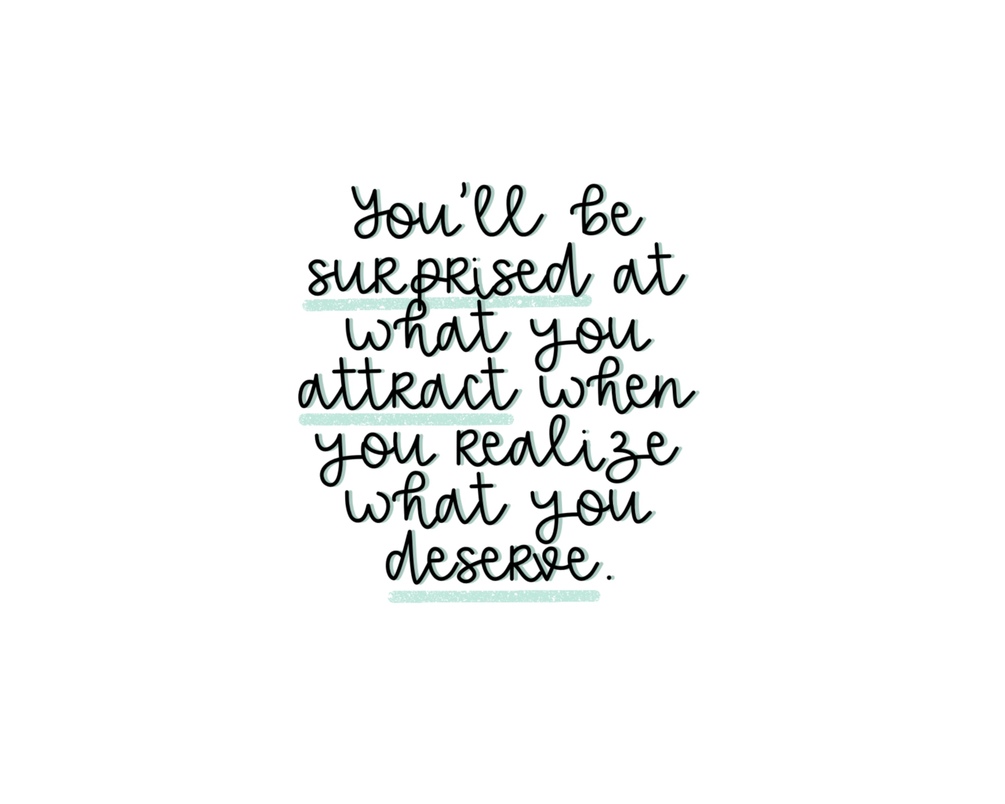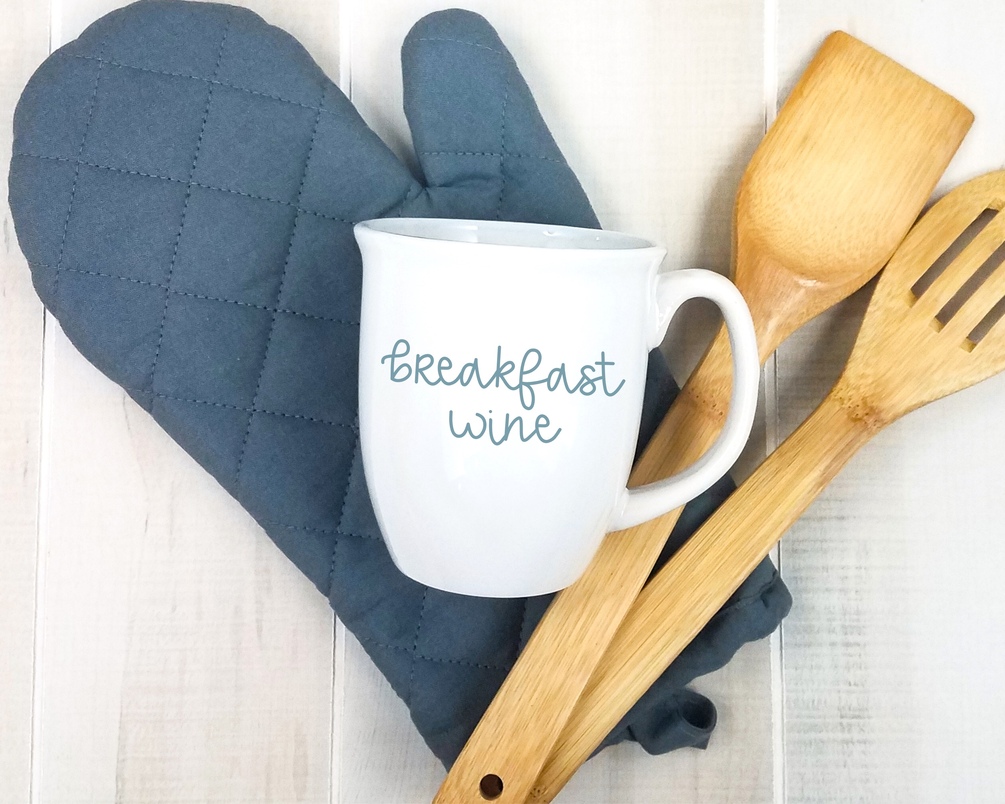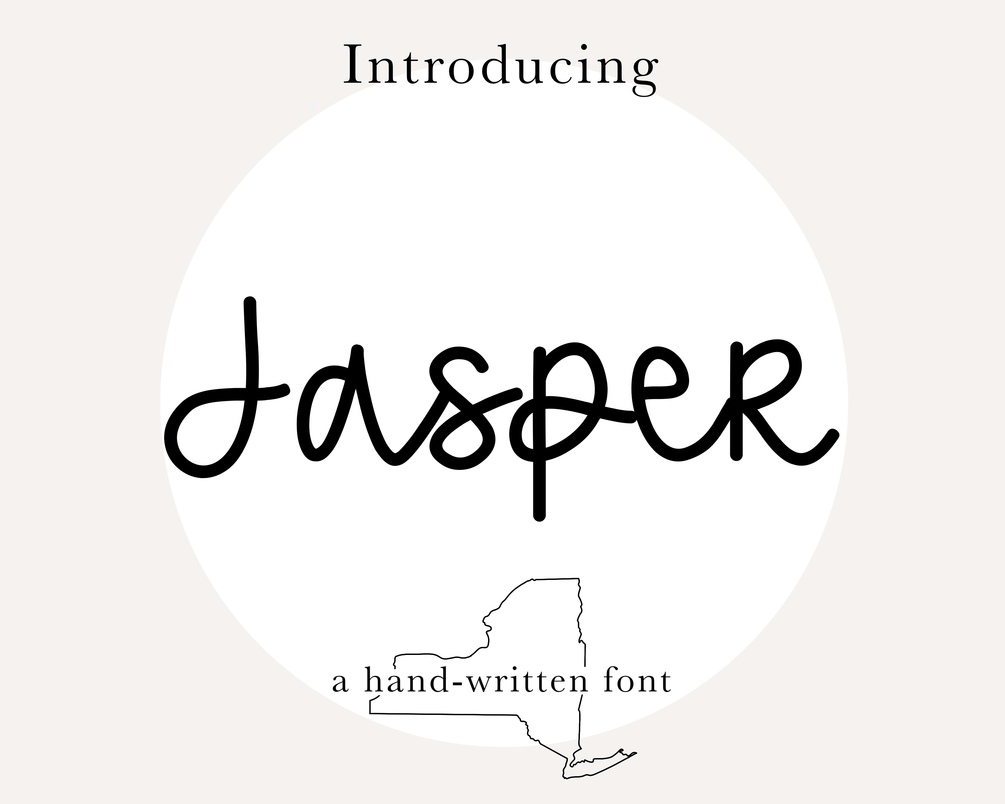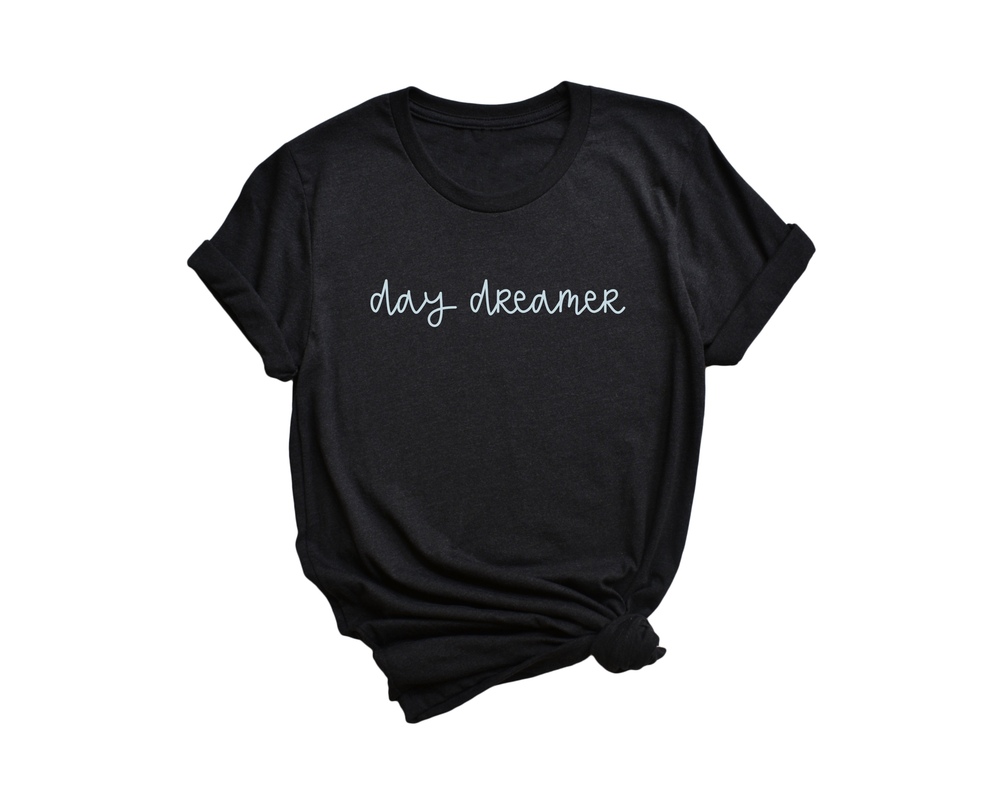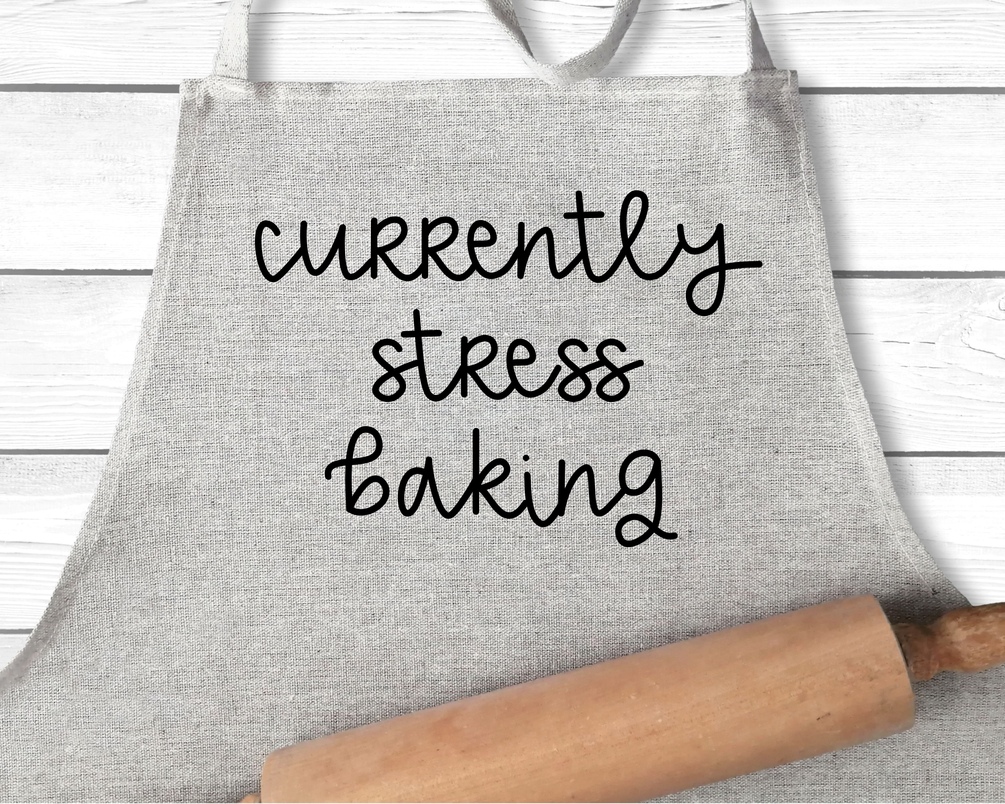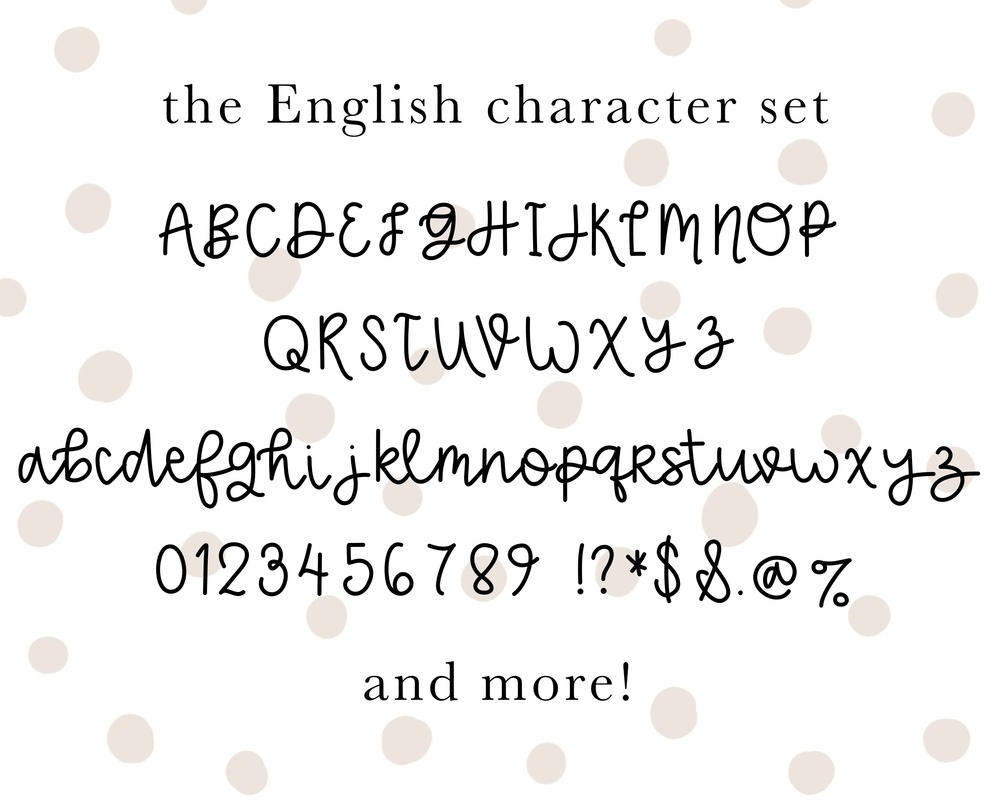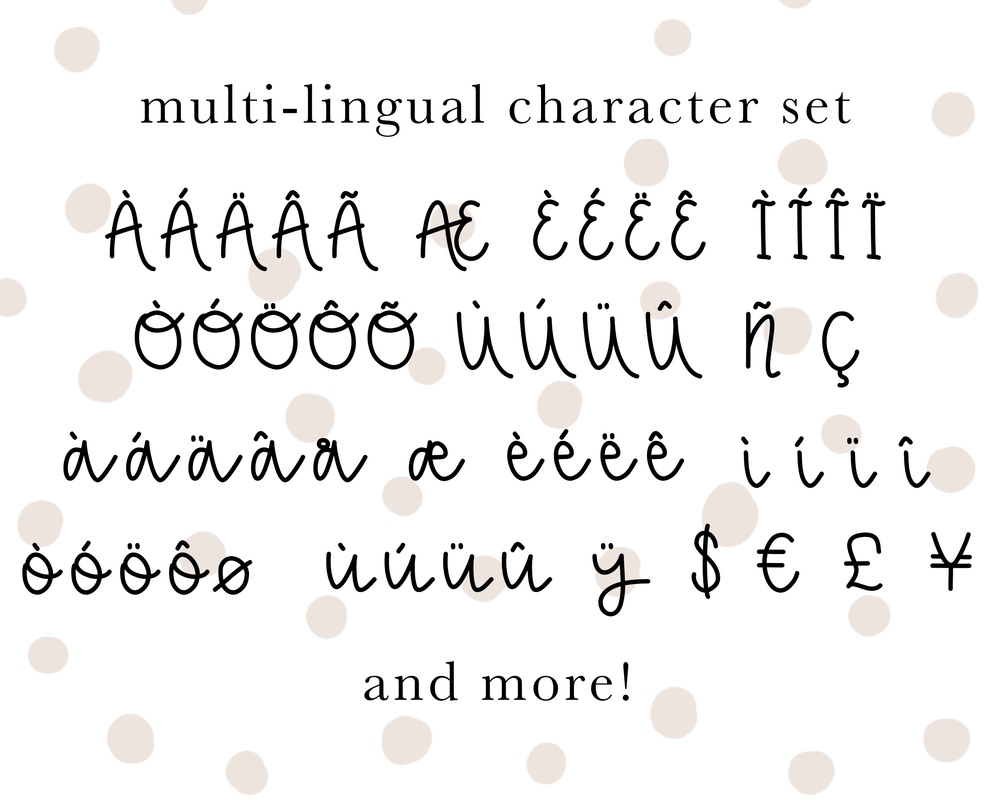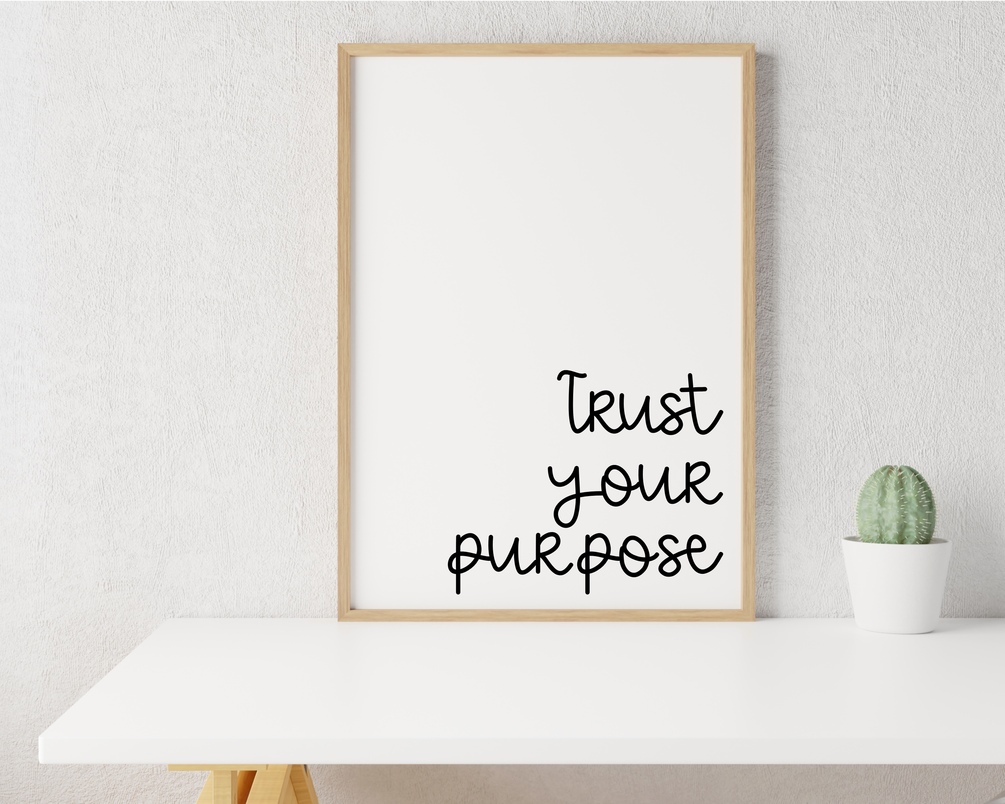
Jasper Font
A handwritten, casual script font! The "Jasper Font" is a fun, informal script font that's perfect for decals, lettering art, t-shirts, stickers, and more.
JASPER FONT- a handwritten, lettered TTF font that includes a full set of upper and lower case letters, multilingual symbols, numbers, punctuation, and more
JASPER BOLD FONT- bold version of "Jasper" (TTF file format) so you can pack in that extra emphasis while working!
Includes standard English characters and multi-lingual support for many accents